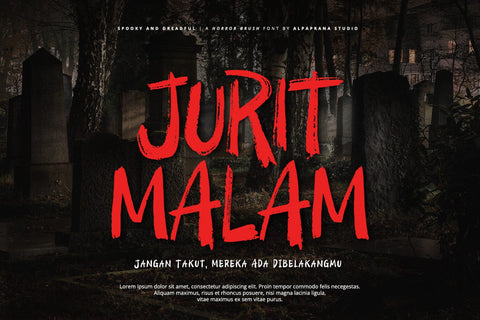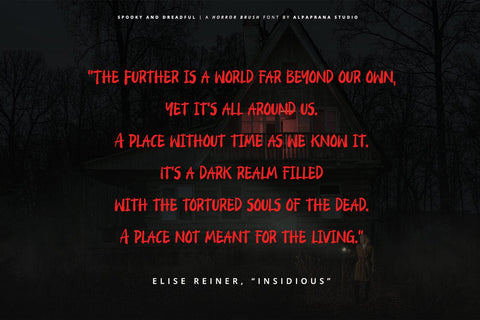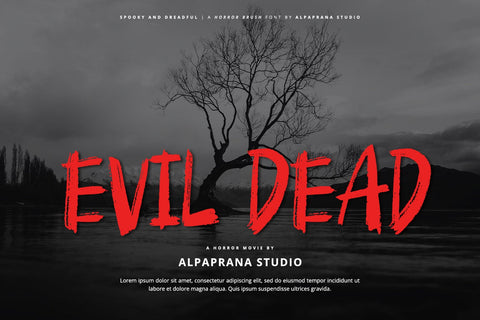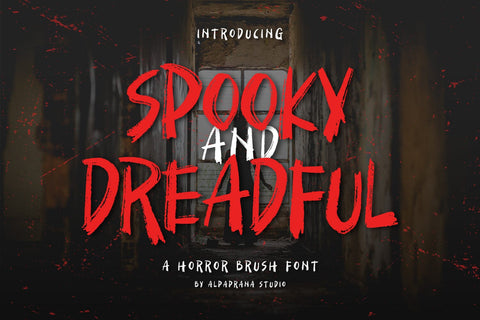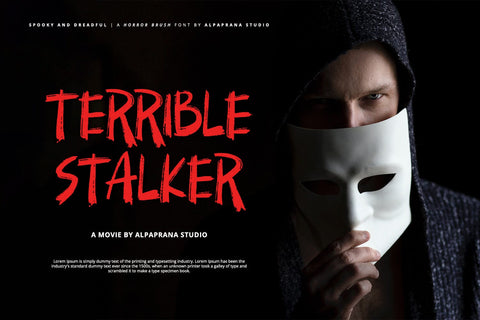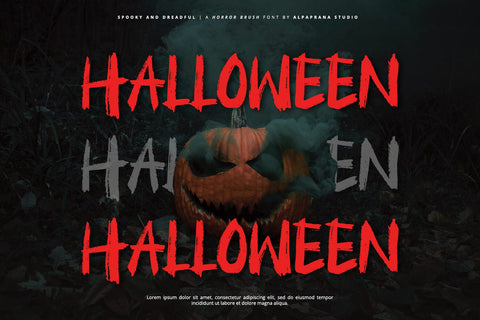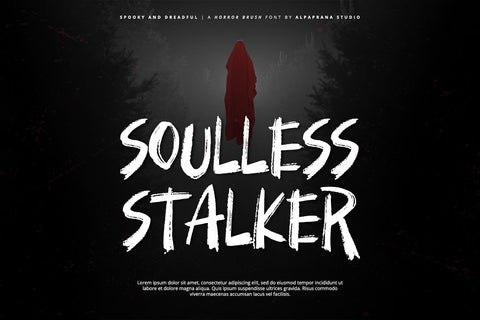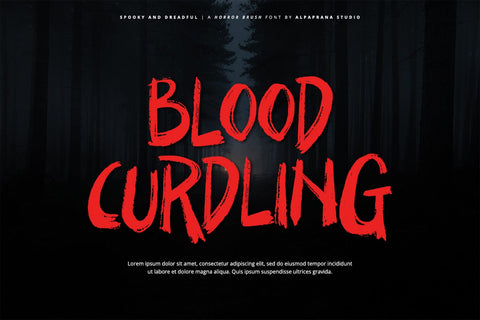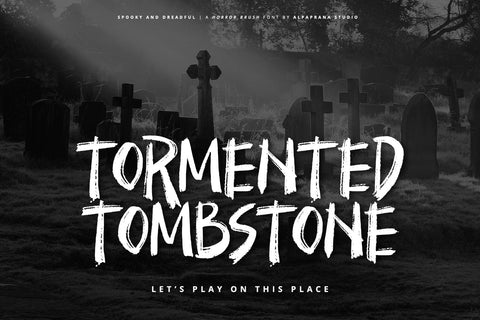
Spooky And Dreadful - Brush Font
Spooky And Dreadful is a stunning brush font with horror feels. It will be perfectly used for Branding, Logo Design, Lettering, Logotype, Clothing, Poster, magazine, packaging, posters, shopping bags, t-shirts, book covers, photography, special events and other design project.